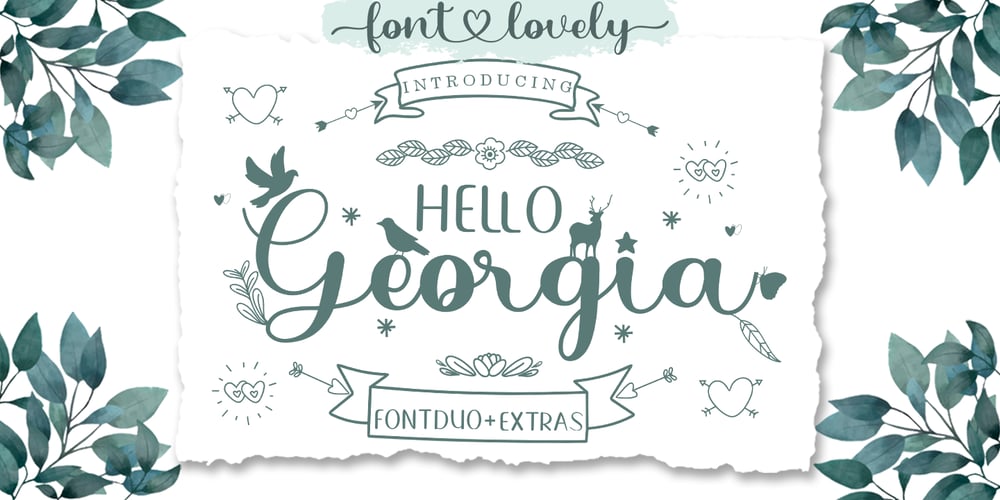
Hello Georgia Script Font Family was designed by Mu Fazzal and published by Bosstypestudio. Hello Georgia Script contains 3 styles and family package options. Hello Georgia Script Font Duo + Extras is a new modern script font with an irregular base line. Trendy and feminine style. Hello Georgia Script looks beautiful in wedding invitations, thank you cards, quotes, greeting cards, logos, business cards, and more. Perfect for use in ink or watercolours. Including beginning and end letters, alternatives and support for many languages.To enable the OpenType Stylistic alternative, you need a program that supports OpenType features such as Adobe Illustrator CS, Adobe Indesign & CorelDraw X6-X7, Microsoft Word 2010 or newer versions. There are several additional ways to access alternatives / swashes, using Character Maps (Windows), Nexus Fonts (Windows), Font Books (Mac) or software programs such as PopChar (for Windows and Mac).How to access all alternative characters:https: //www.youtube.com/watch? v = Go9vacoYmBwhttps: //www.youtube.com/watch? v = XzwjMkbB-wQhttps: //www.yo … need help or have a question, let me know I am happy to help ๐ Thank you & Congratulations on Design!